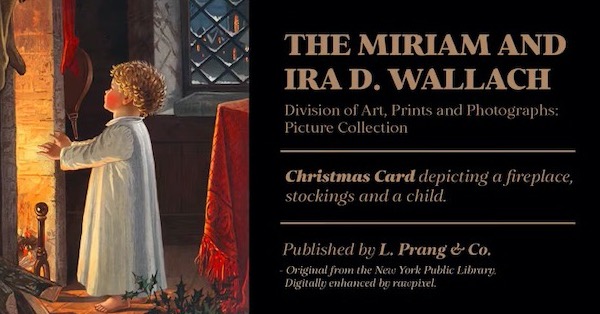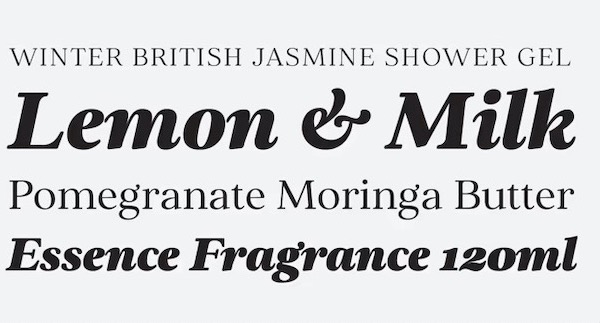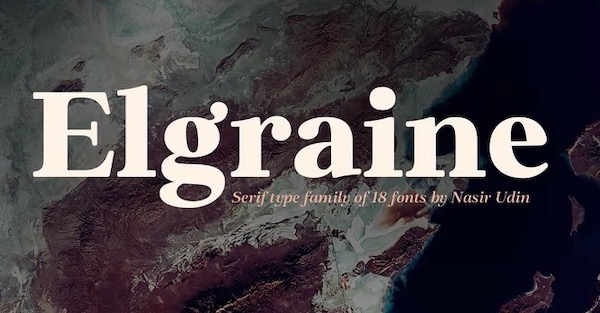
Elgraine Font
Elgraine is a classy modern serif Font that was created and shared by Nasir Udin. This basic font is inspired by the beauty of retro serif as well as calligraphic style, fused with a modern touch. Elgraine Font Family includes 18 different gorgeous styles that are ranged from thin to black with matching italics, Elgraine offers many possibilities to be applied in many graphic or editorial projects. The light and regular weights are suitable for long paragraphs, and the heavier weights are perfect for striking headlines and perfectly suitable for display purposes such as branding, editorial, and packaging. Elgraine Font has an extended Latin character set that supports 200+ Latin-based languages.